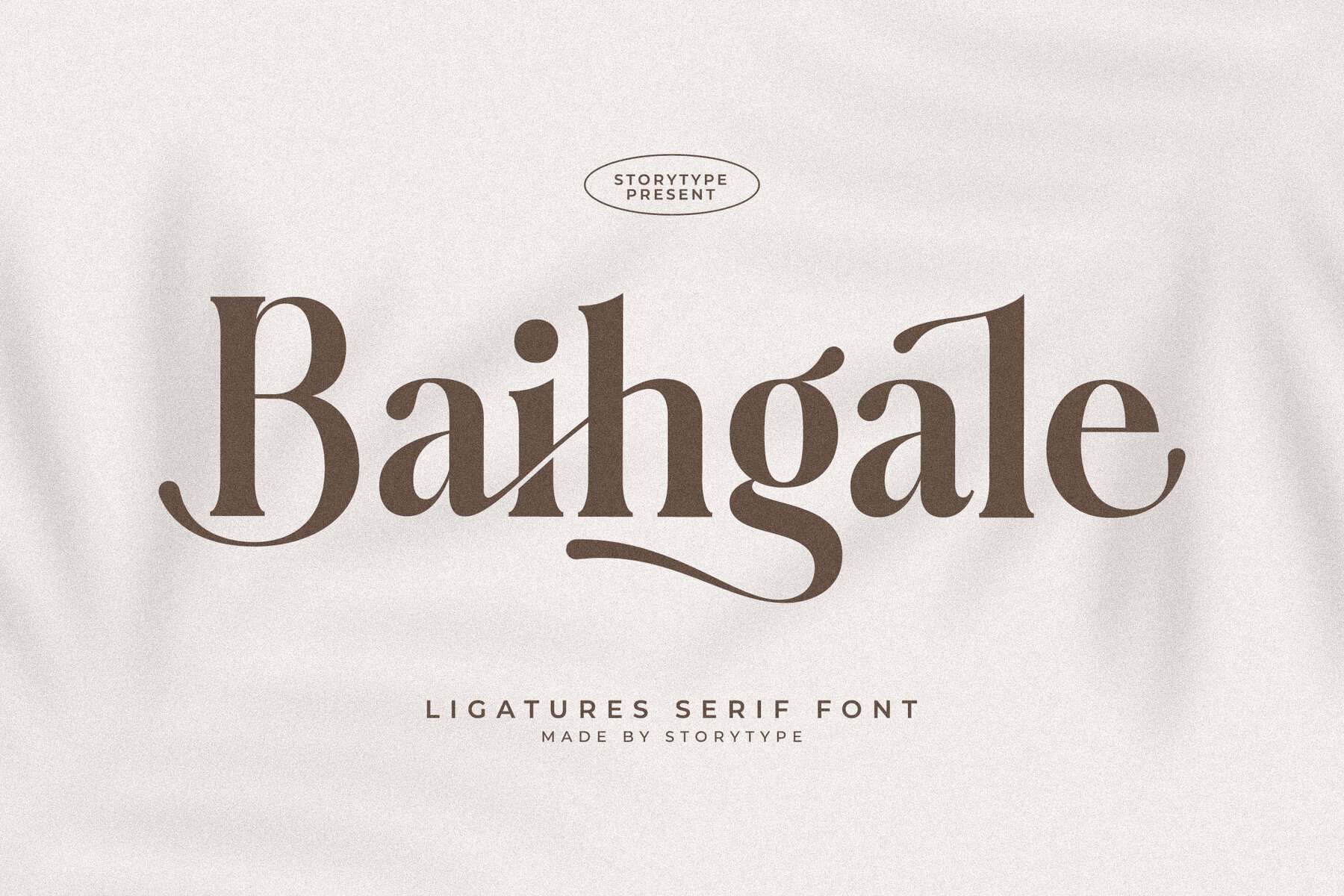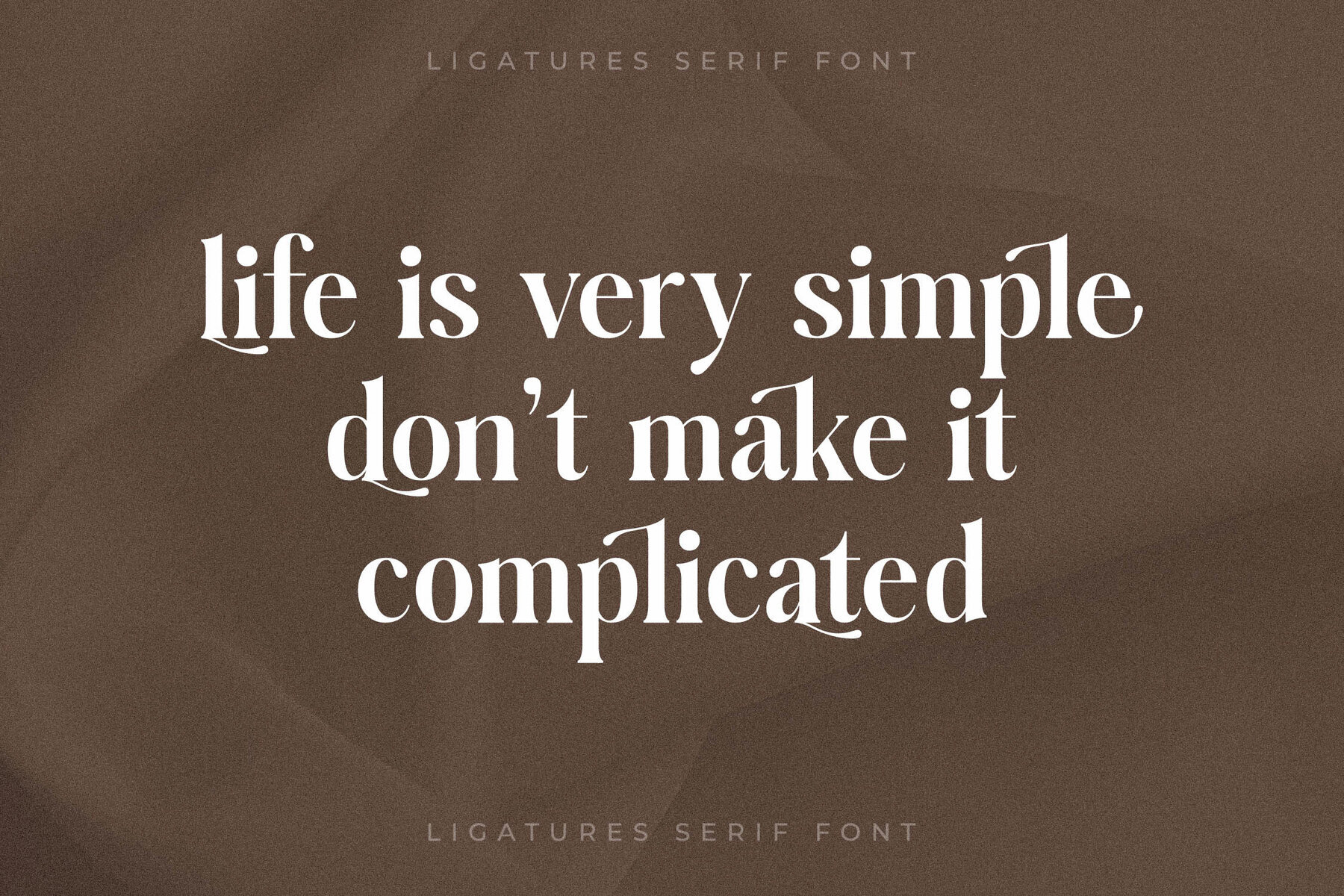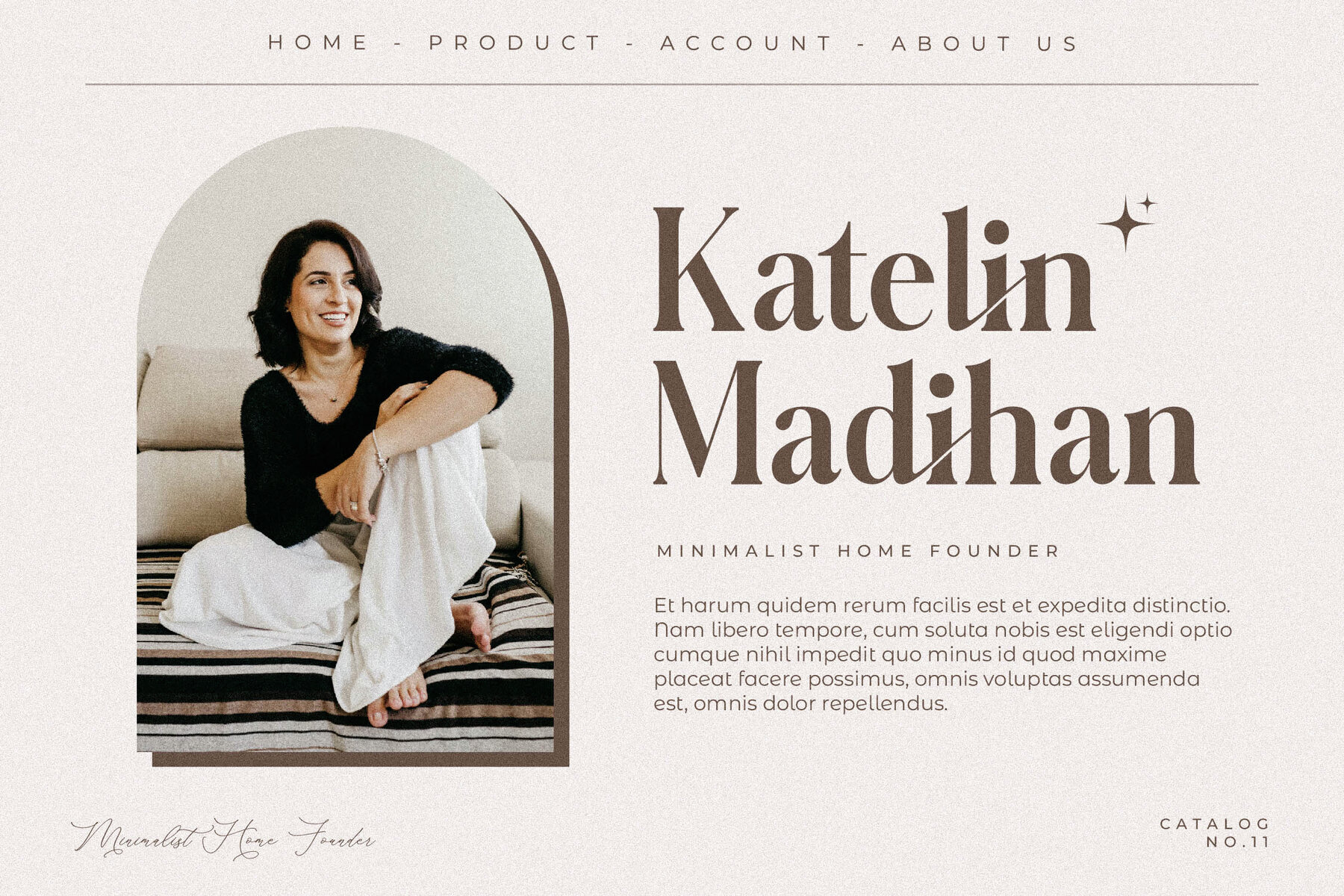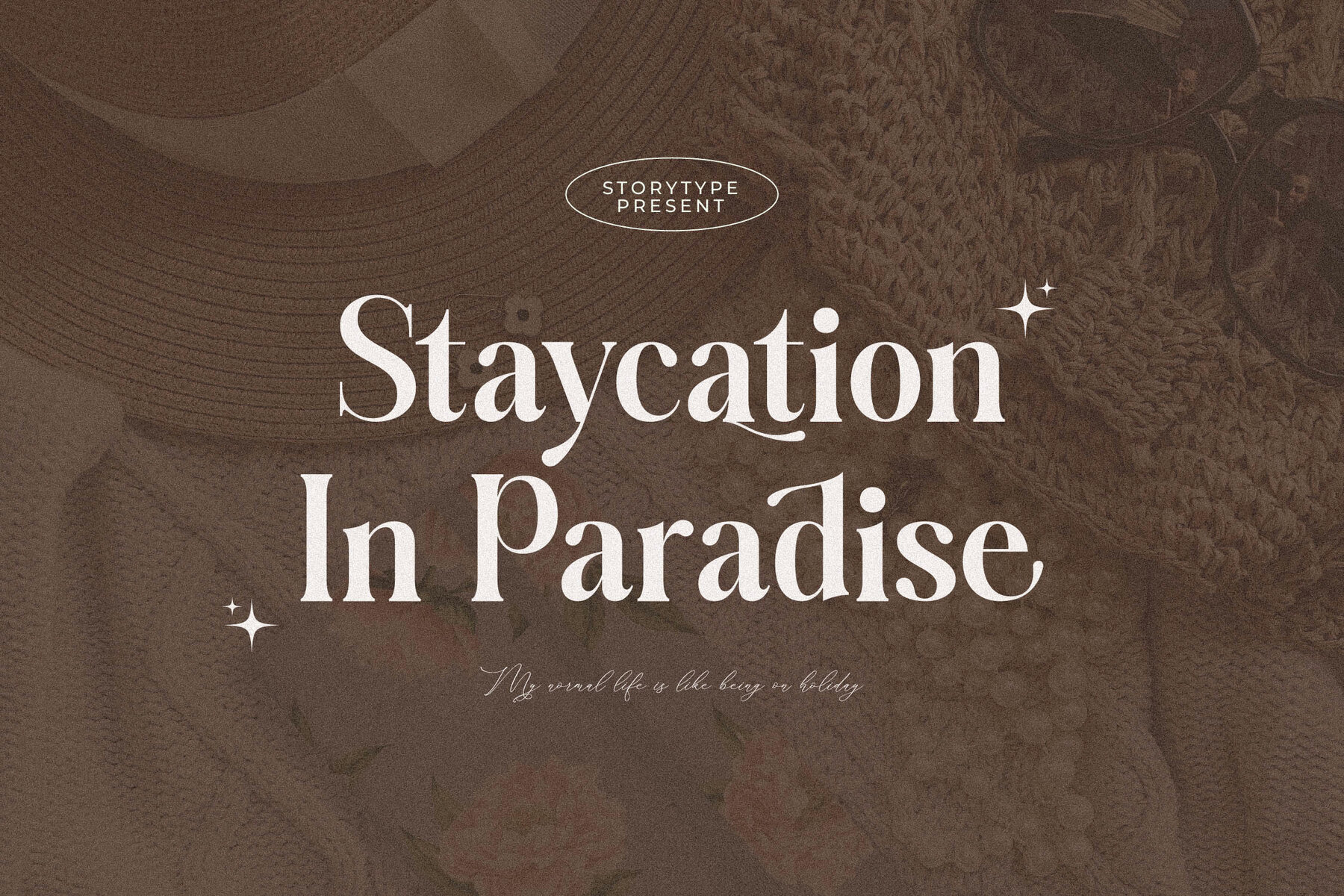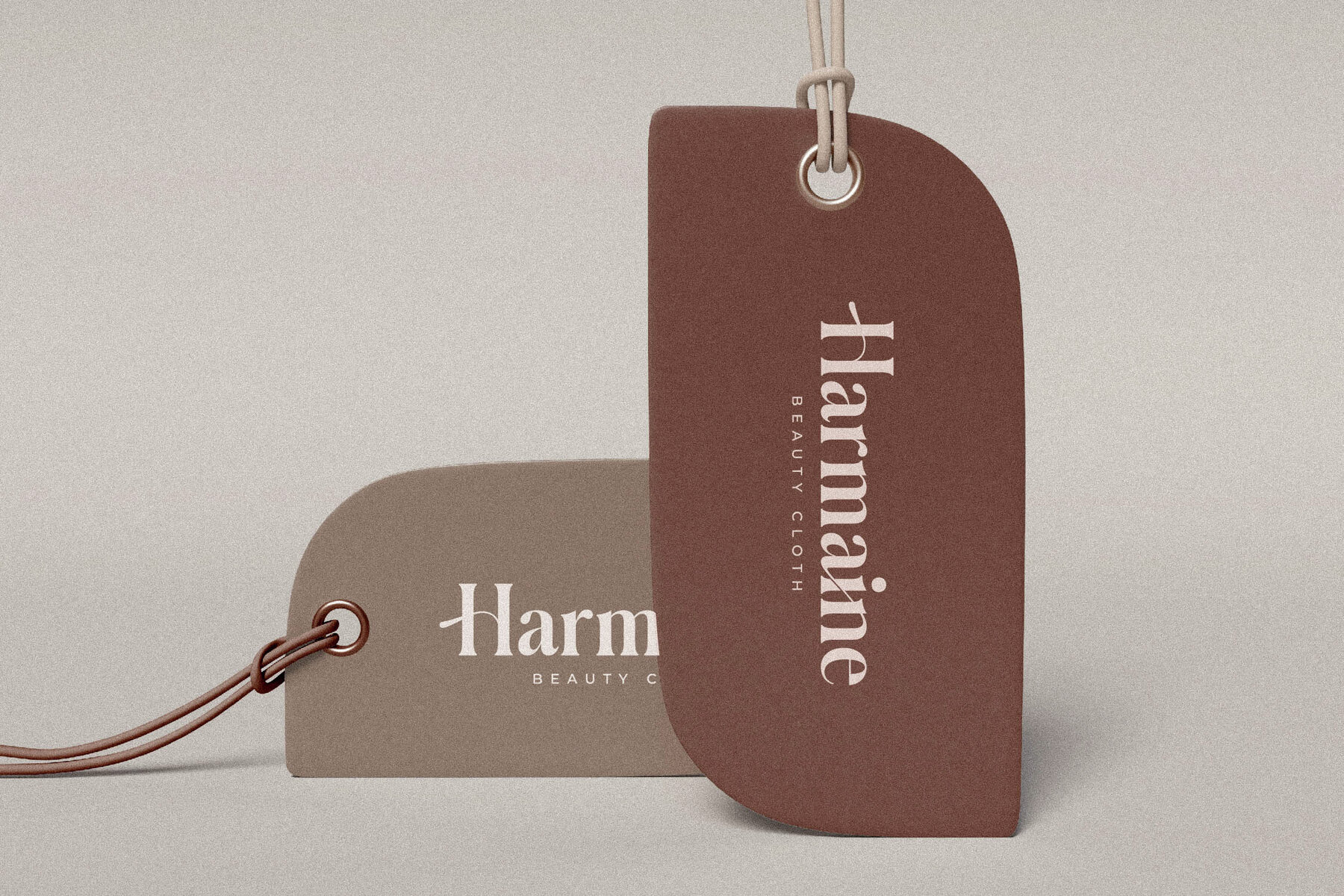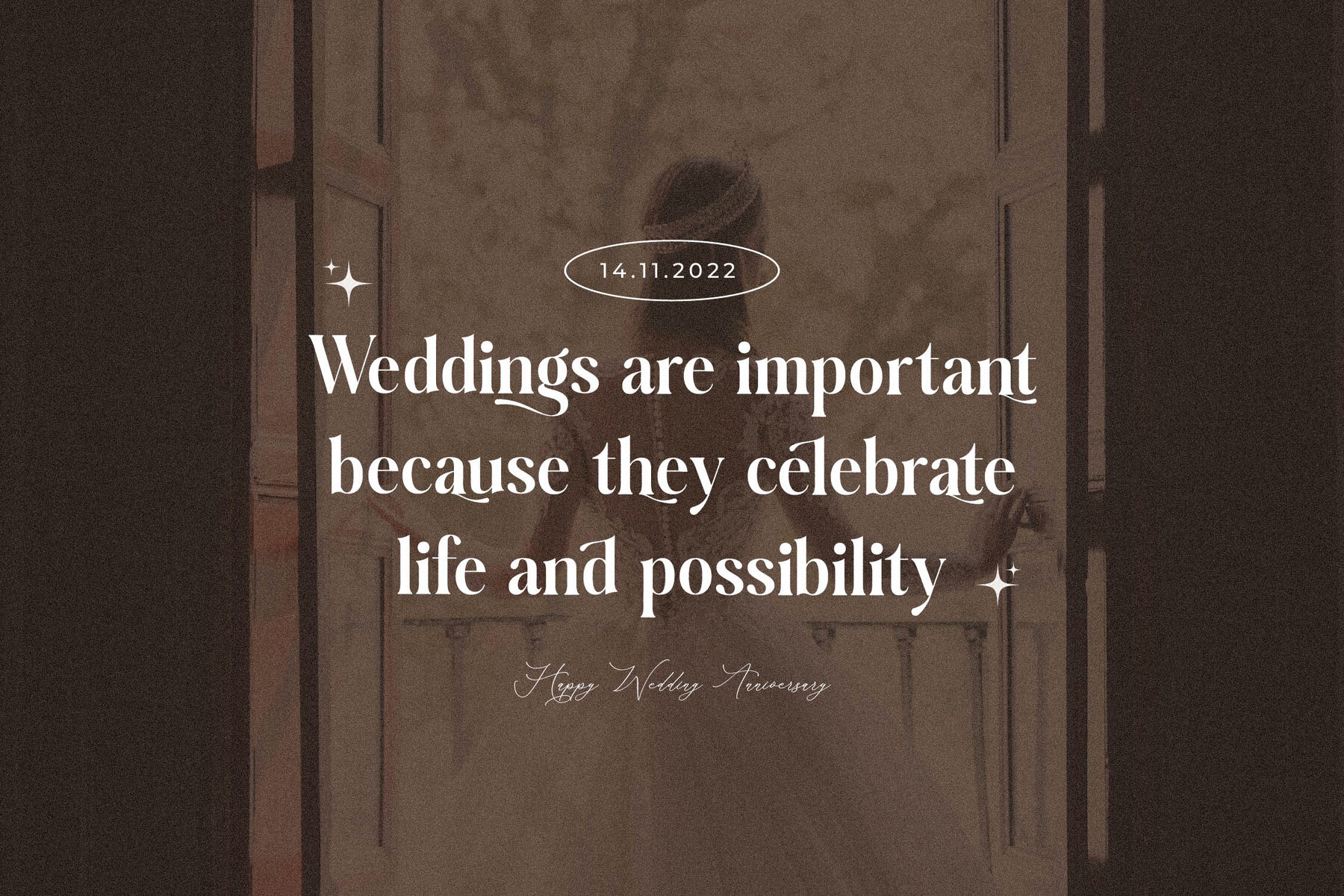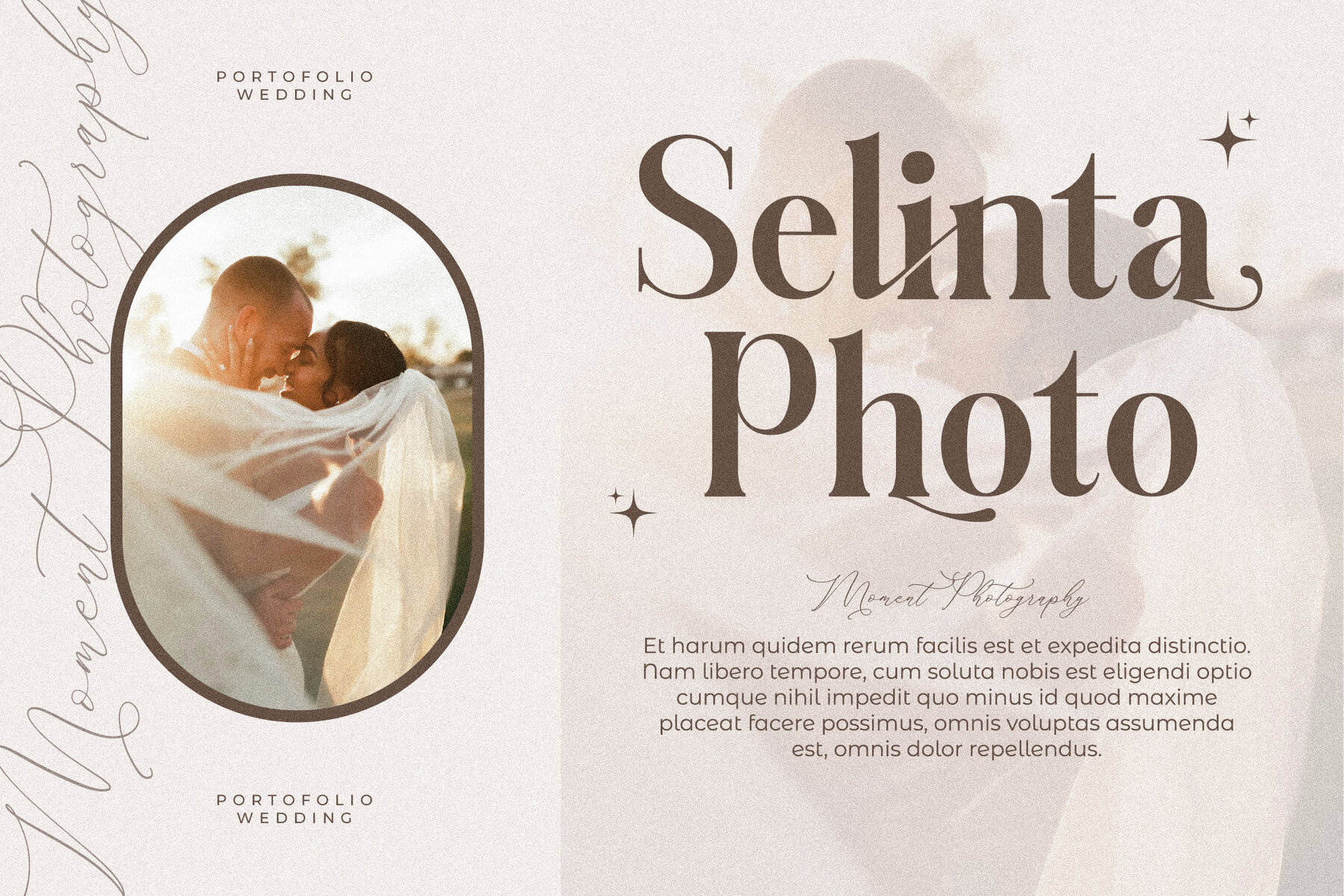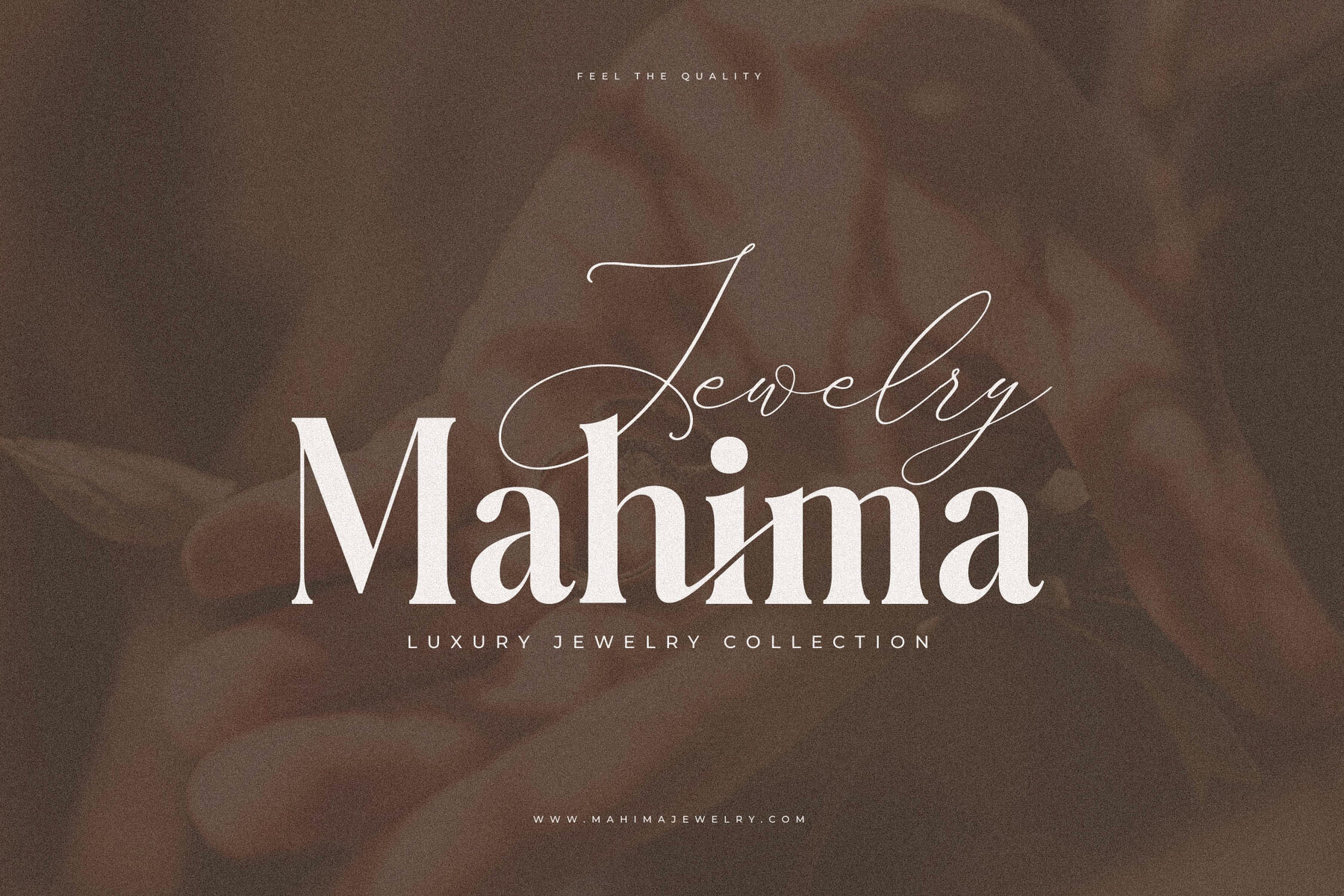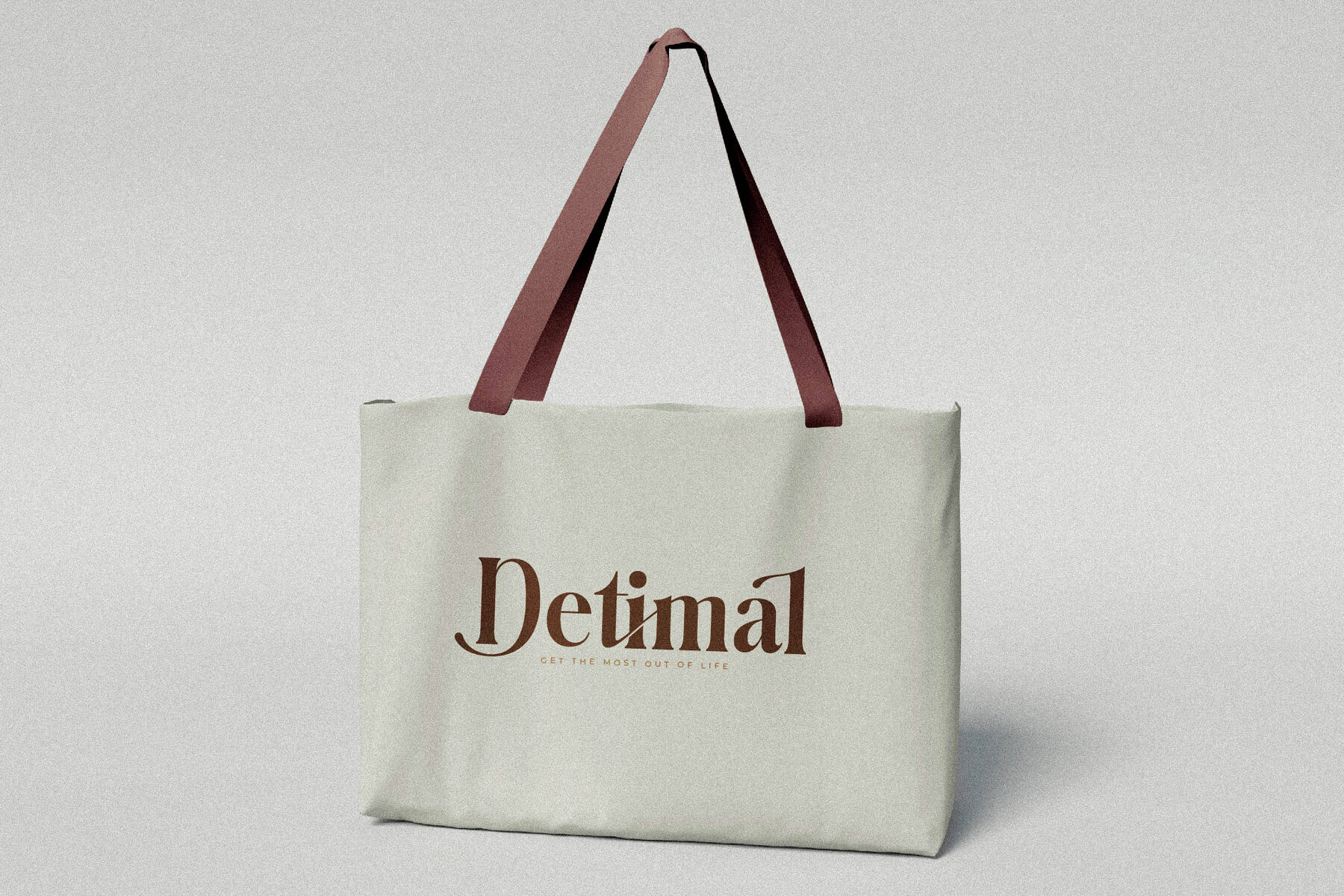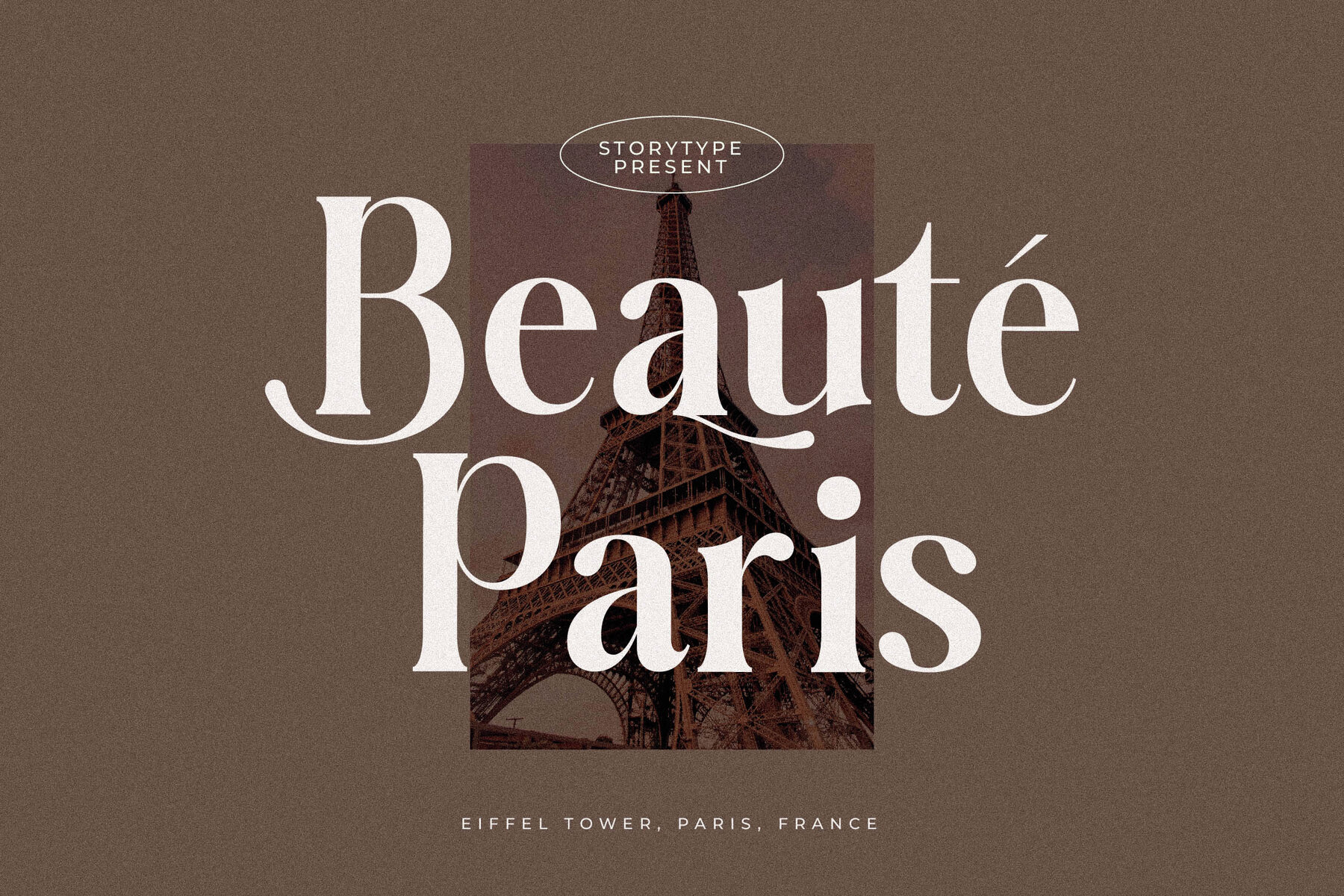
Baihgale Font
Baihgale Regular
Baihgale Italic
Introducing Baihgale Typeface by Storytype Studio—where modern charm meets timeless sophistication. This serif typeface radiates a unique blend of classical and contemporary design, making it the ideal choice for crafting luxury logos, captivating book or movie titles, and sophisticated fashion brand identities. Embrace its versatility for magazine layouts, apparel designs, or eye-catching quotes.Baihgale Typeface: Elegance Meets Modernity